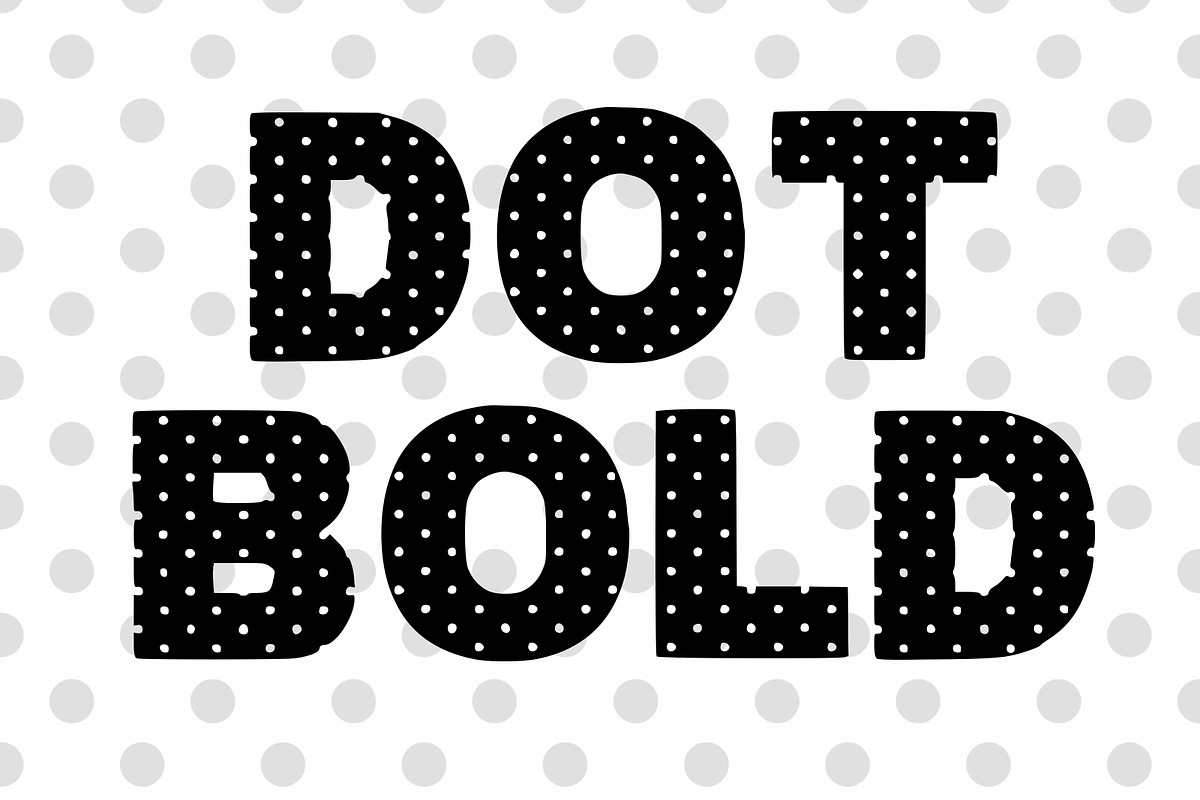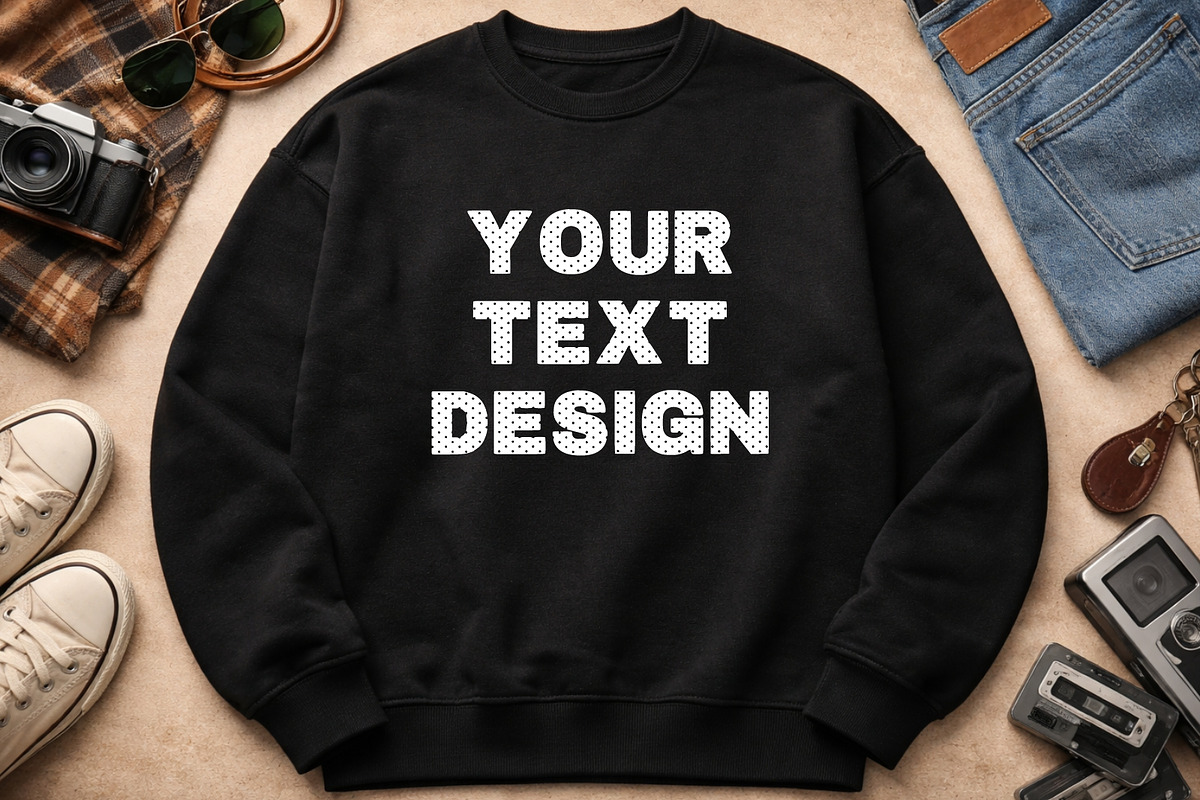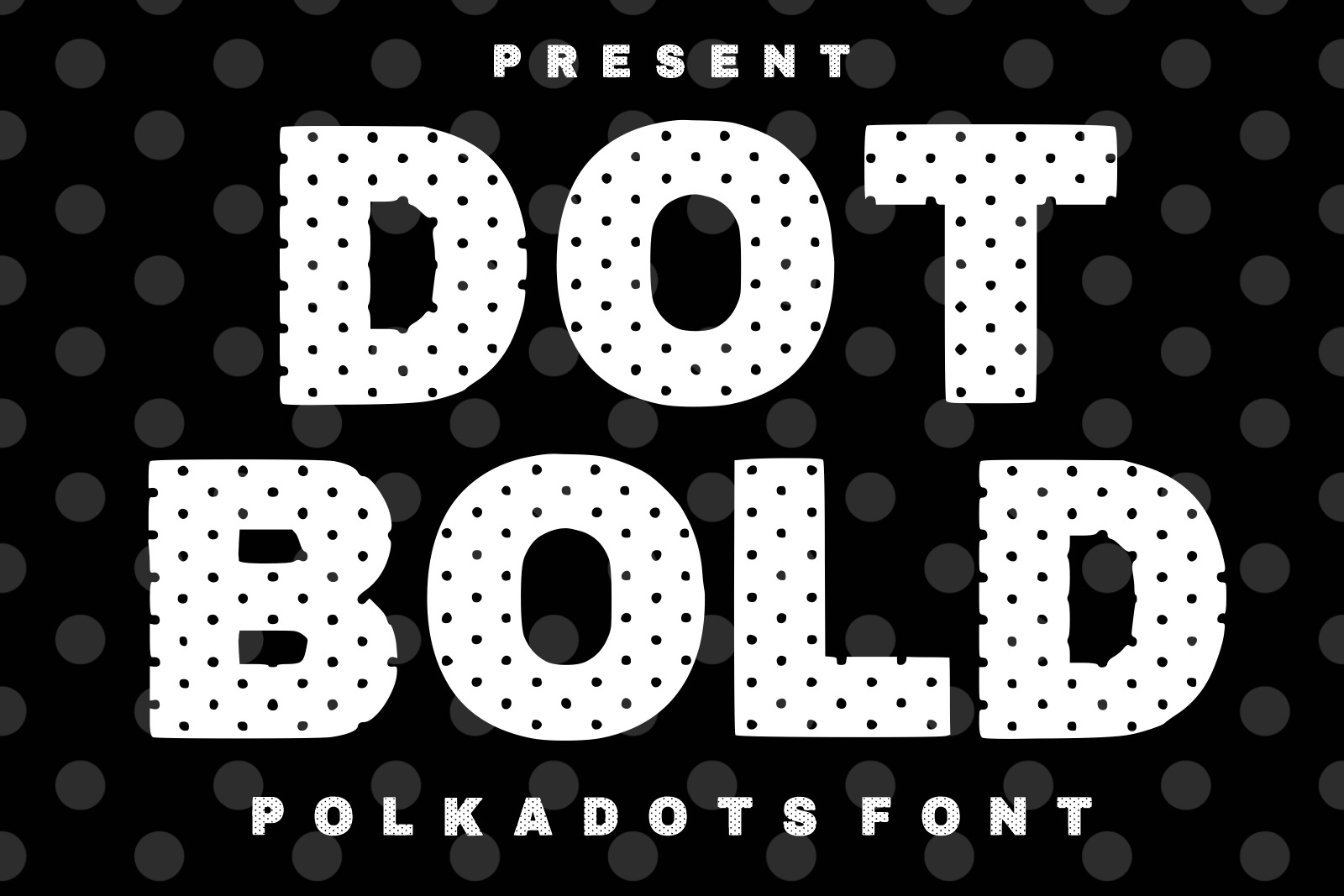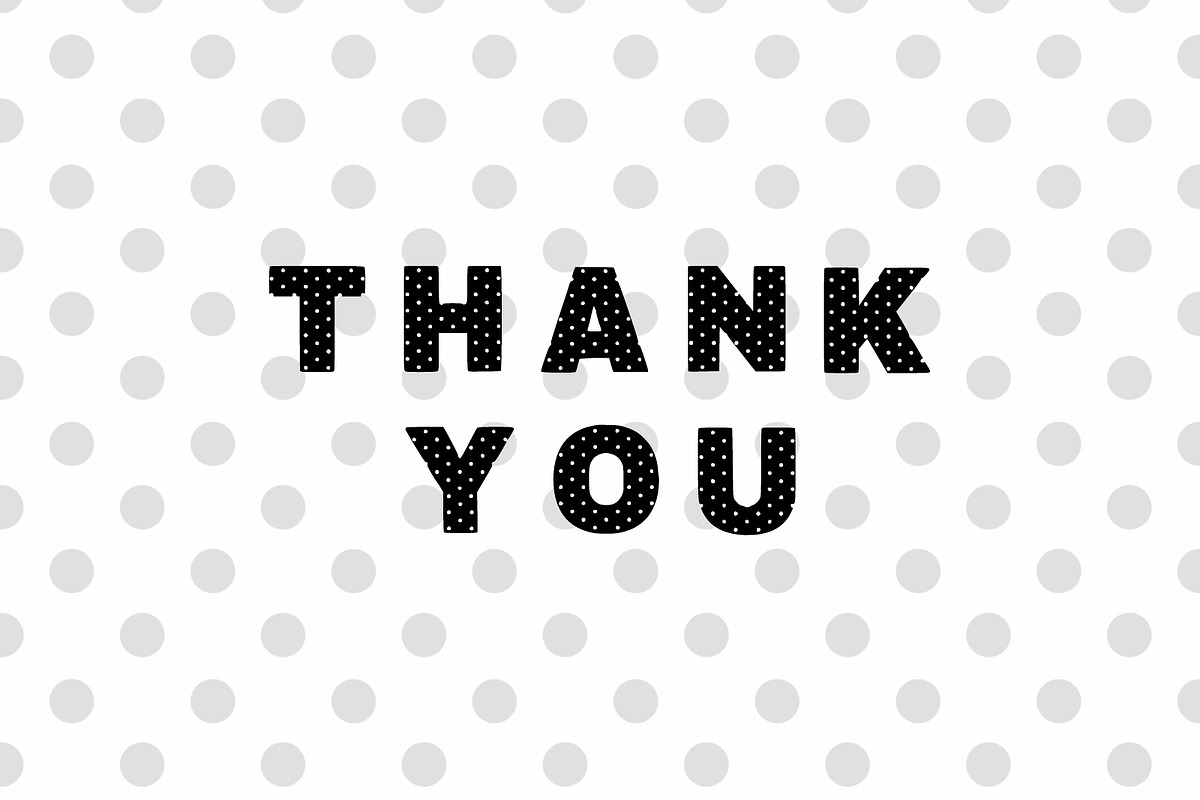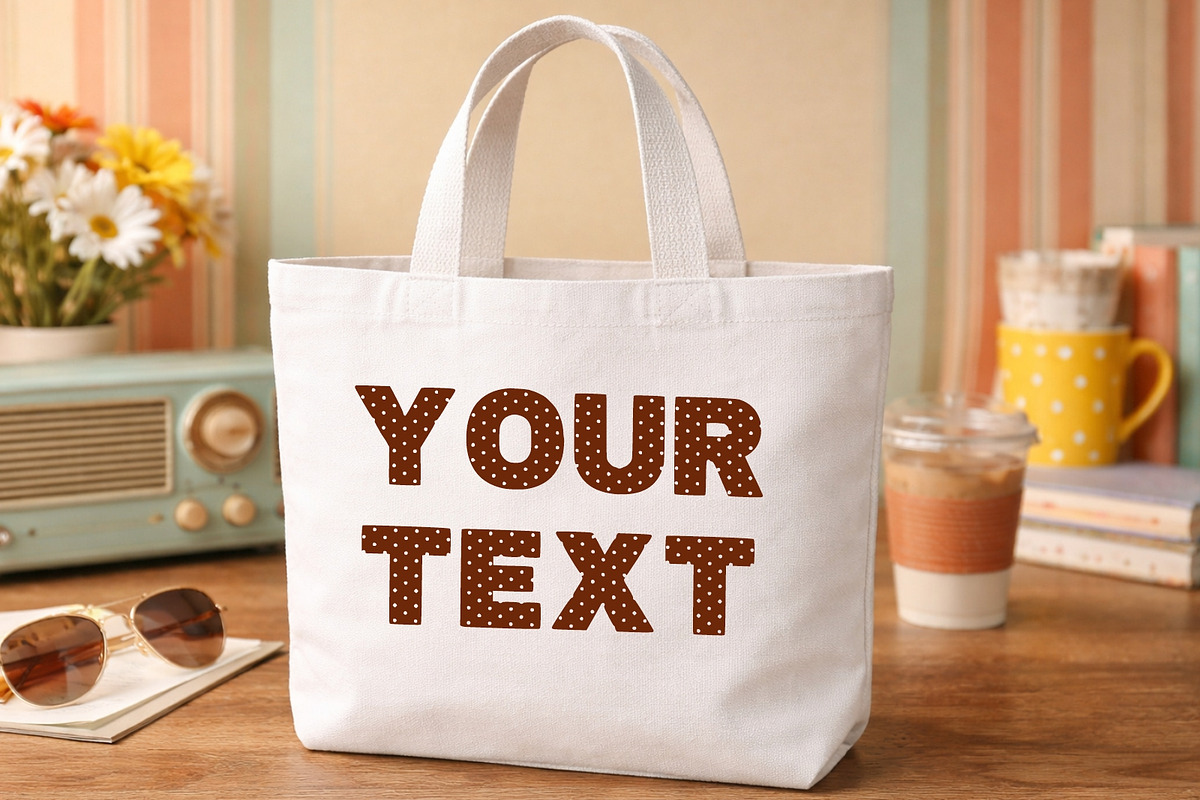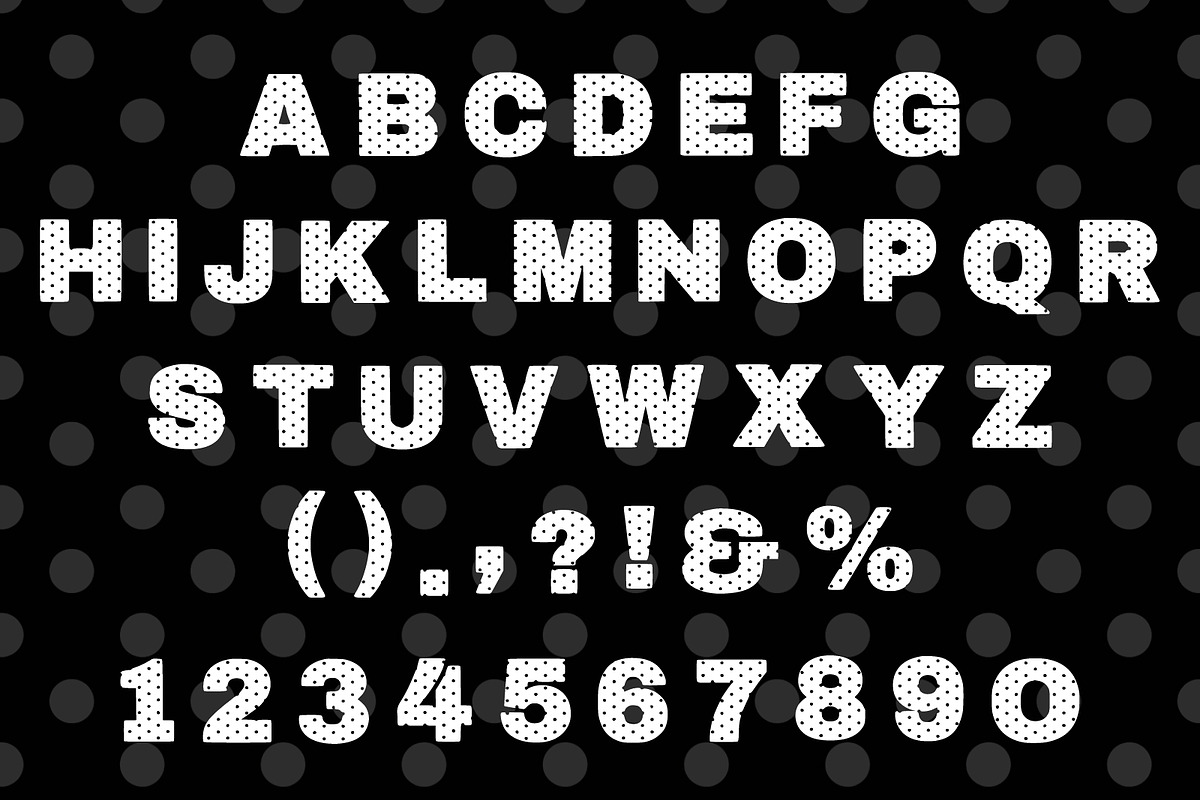
Cute Polka Dot Display Typeface
Add a playful and modern touch to your creative projects with Dot Bold, a charming display font featuring adorable polka dot details inside every bold letter. Designed with thick, rounded characters and a fun dotted pattern, this typeface is perfect for creating eye-catching headlines that instantly grab attention.
Whether you're designing for kids, crafting personalized gifts, or creating fun branding, Dot Bold delivers a clean, friendly, and cheerful look that works beautifully across both print and digital media.
Ideal for logos, t-shirts, posters, invitations, product packaging, classroom decorations, stickers, Cricut projects, sublimation designs, and social media graphics, this font is versatile enough to brighten any creative project.
Kids Branding
Children's Books
Nursery Designs
Birthday Invitations
Classroom Decorations
Preschool Learning Materials
Posters & Flyers
Stickers & Labels
T-Shirt Designs